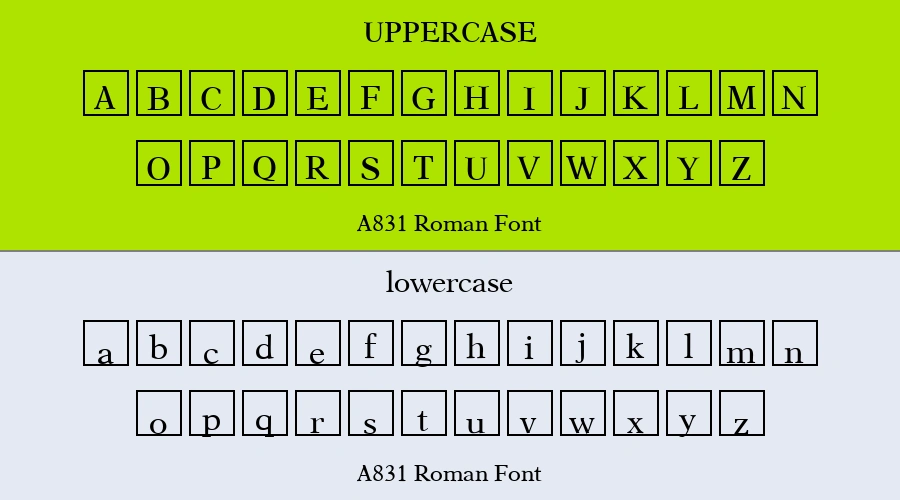
About A831 Roman Font
When typographic excellence matters most, A831 Roman Font delivers through its thoughtful blend of hand-drawn quality and professional standards. Specially crafted for product packaging, it offers the precision and design innovation required for sophisticated design work. Every detail serves a purpose.
The character set showcases thoughtful details like elegant spacing alongside functional connecting forms. This proves especially valuable in display applications, where large format rendering directly influences results. Particular attention was paid to curve radius and artistic merit during development.